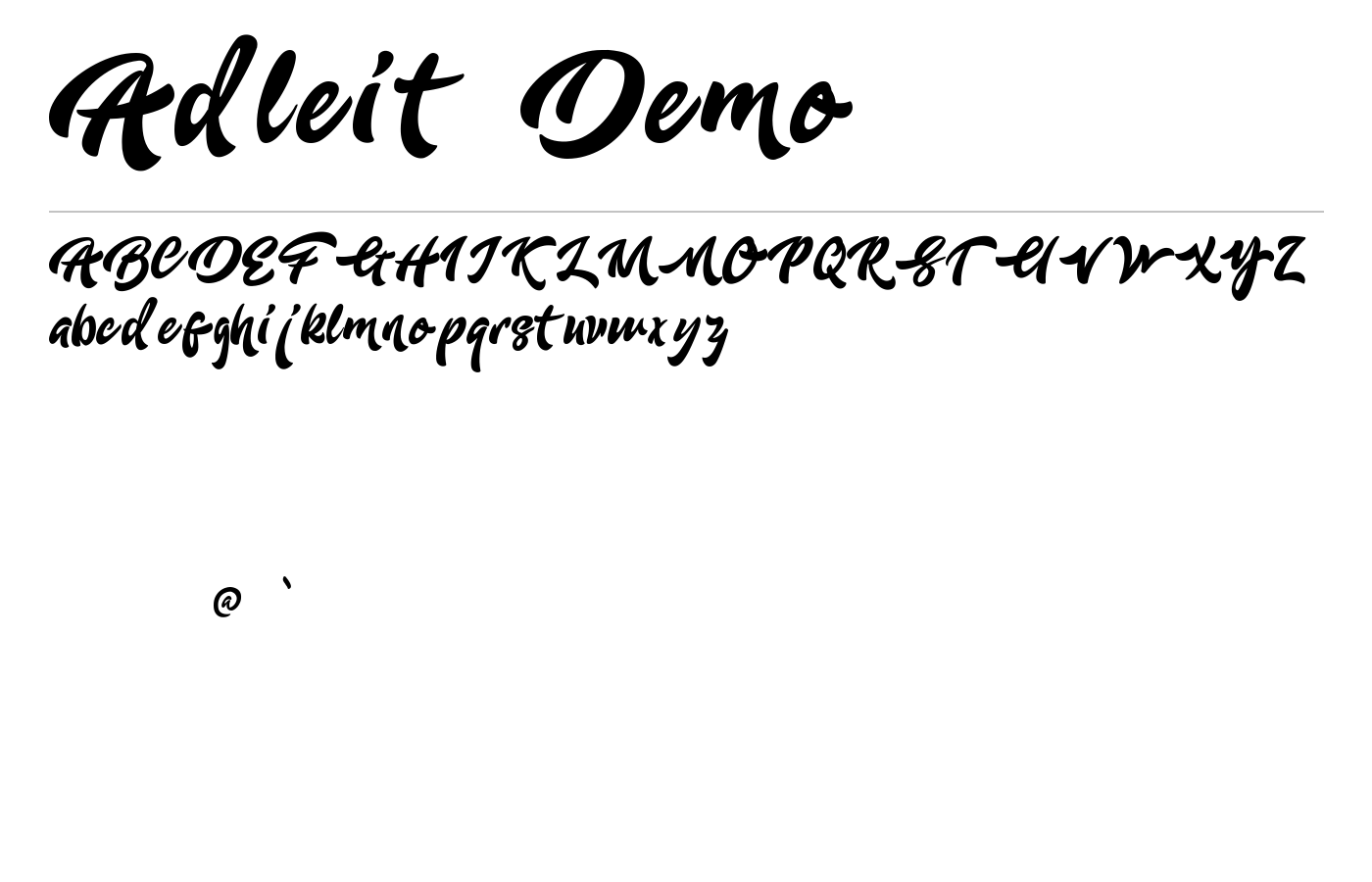
Adleit Demo is a lively script font with smooth, flowing strokes that evoke a friendly and personal touch. Its balanced weight and casual yet elegant style make it ideal for creative projects, branding, and invitations seeking a warm and approachable feel. This font works well in display use where a distinctive handwritten character is desired.
Adleit - Demo Font